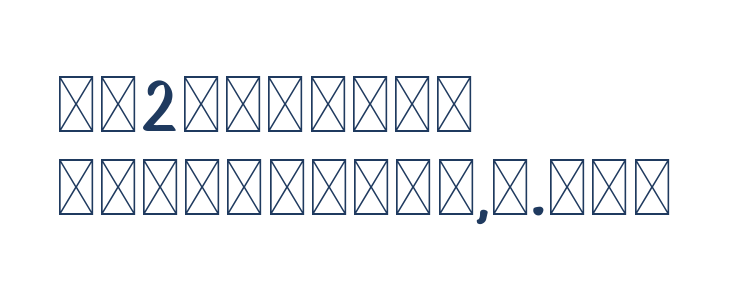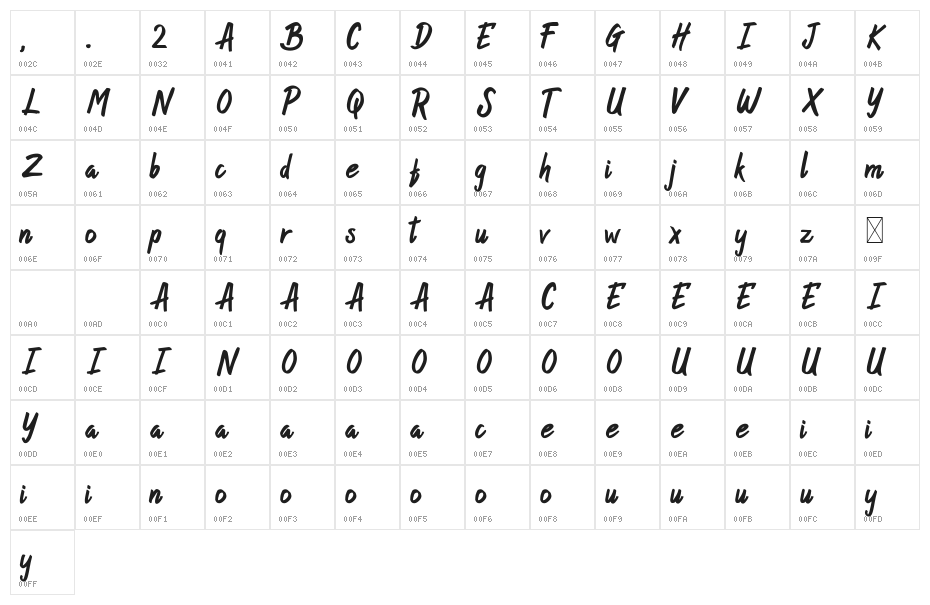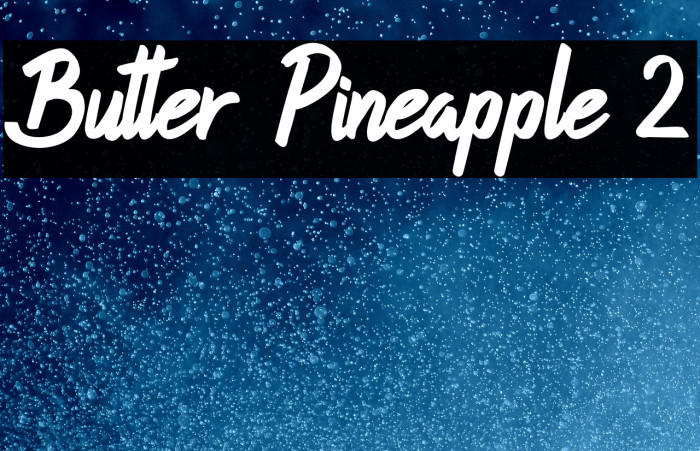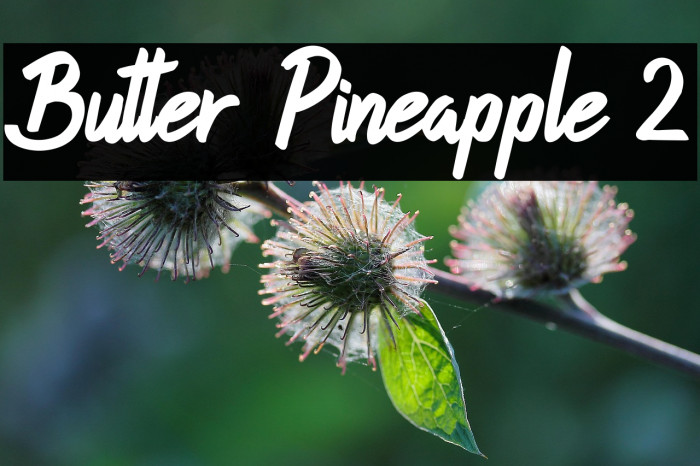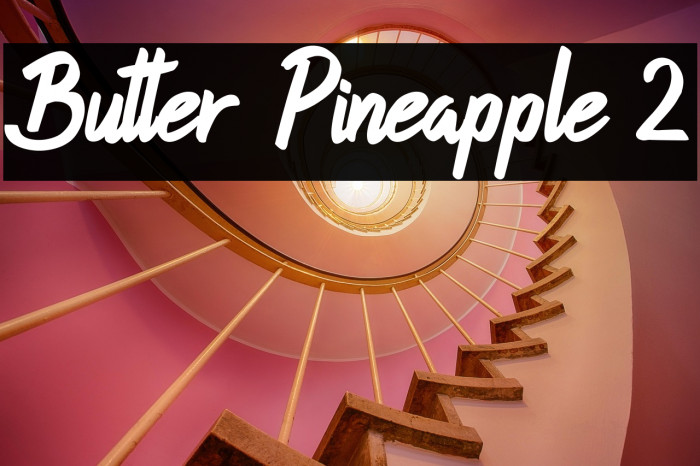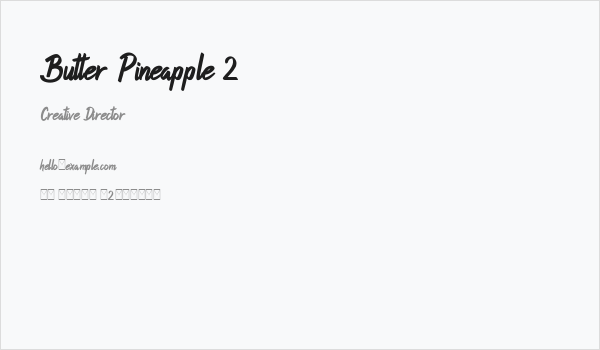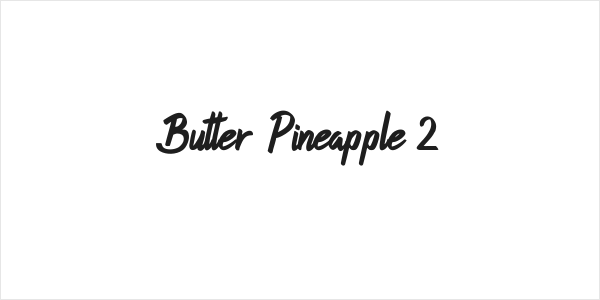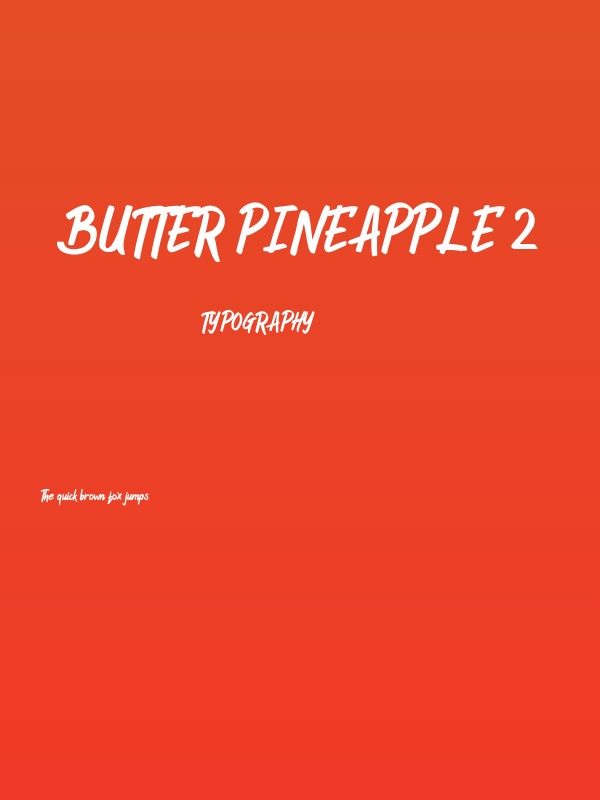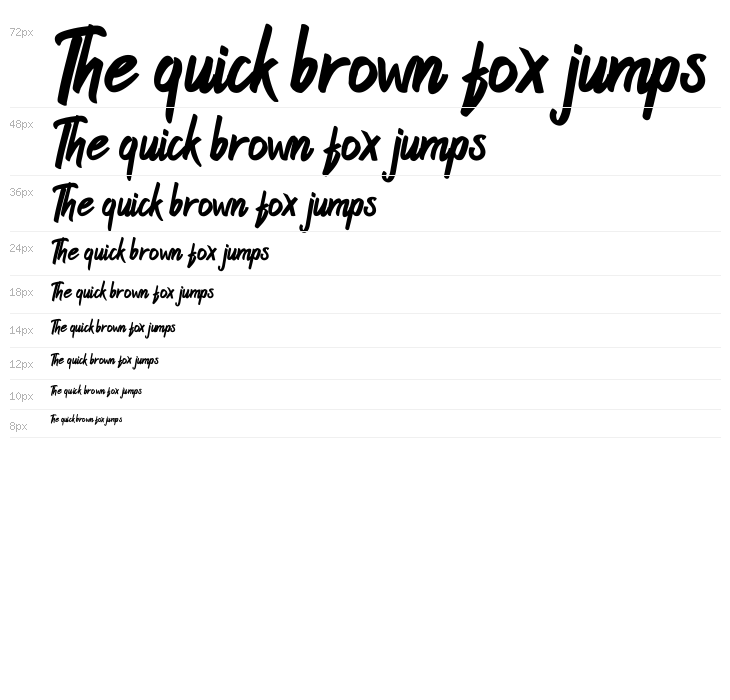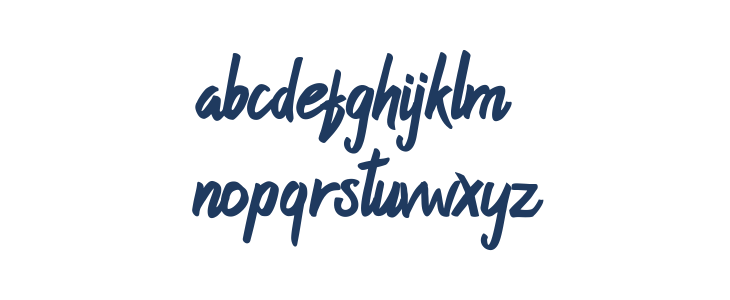
Butter Pineapple 2 Font
Butter Pineapple 2 Description
This font exudes a lively and energetic vibe with its bold, handwritten style. The letters are slightly slanted, giving a sense of motion and fluidity. The strokes are thick and consistent, providing a strong visual impact. The uppercase letters are tall and commanding, while the lowercase letters maintain a playful and approachable appearance. The numerals and punctuation follow the same dynamic style, ensuring uniformity across all characters. This font is perfect for projects that require a personal touch or a creative flair.
| Proposed Projects | Ideal for branding, posters, social media graphics, and creative invitations. |